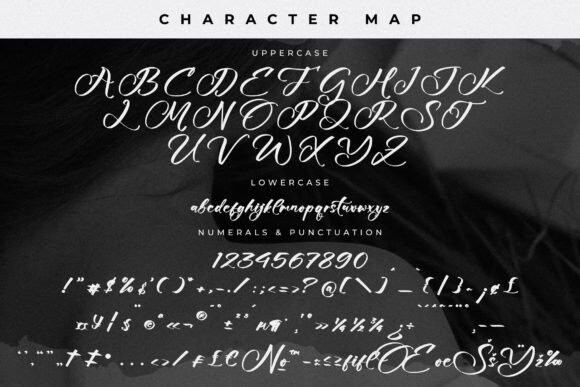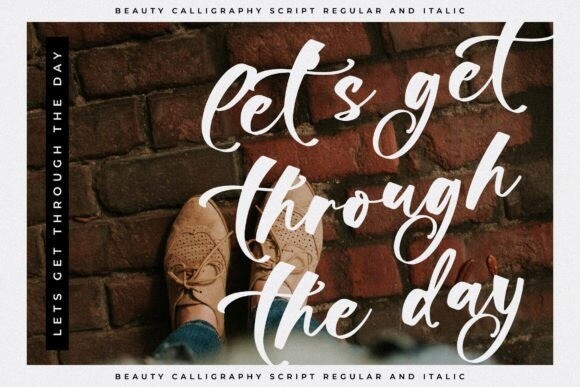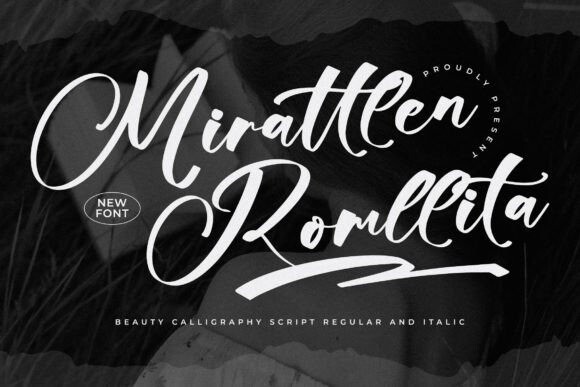
Mirattlen Romllita Font
Mirattlen Romllita Font – Beauty Calligraphy Script , from Glorytype Studio, suitable for any projects such as: logos, branding projects, homeware designs, product packaging, mugs, quotes, posters, shopping bags, t-shirts, book covers, name card, invitation cards, greeting cards, label, photography, watermark, special events, and all your other lovely projects that need a beautiful script taste.